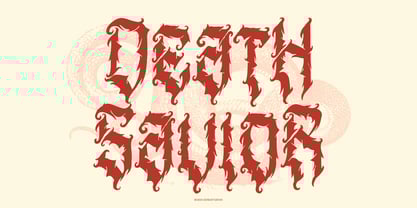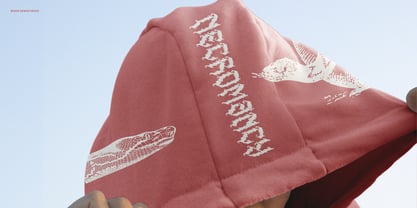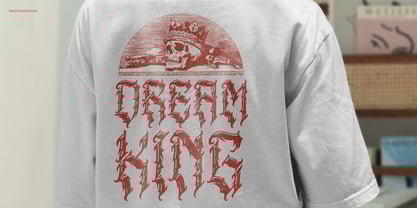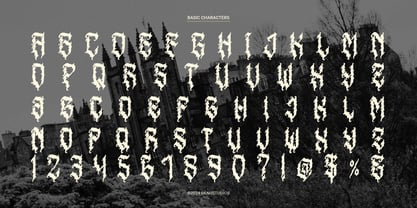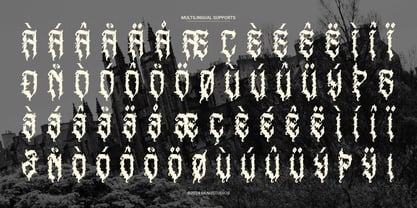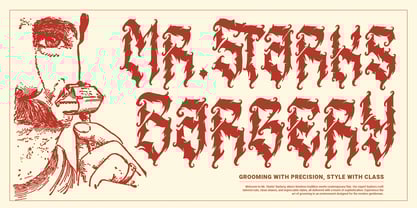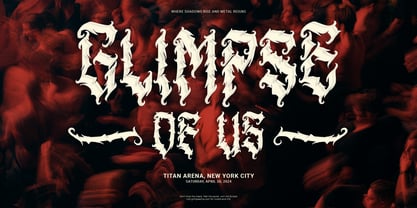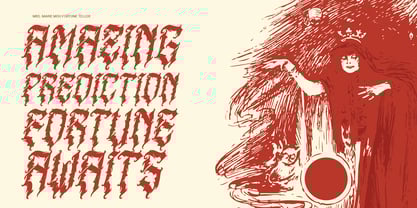
Karma Rivera
by Denustudio
Karma Rivera | Blackletter Typeface, from Denustudios, suitable for any projects such as: logos, branding projects, homeware designs, product packaging, mugs, quotes, posters, shopping bags, t-shirts, book covers, name card, invitation cards, greeting cards, label, photography, watermark, special events, and all your other lovely projects that need a Blackletter Font taste.
• Regular and Italic
• Standard glyphs
• Alternate and Ligature